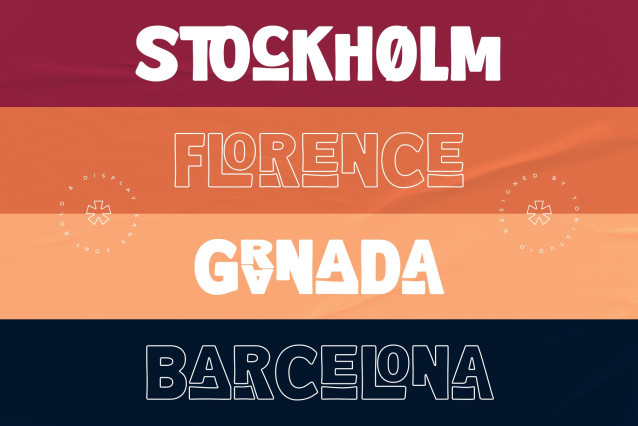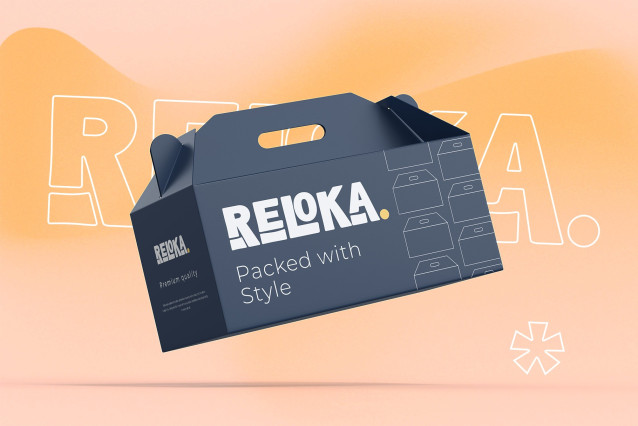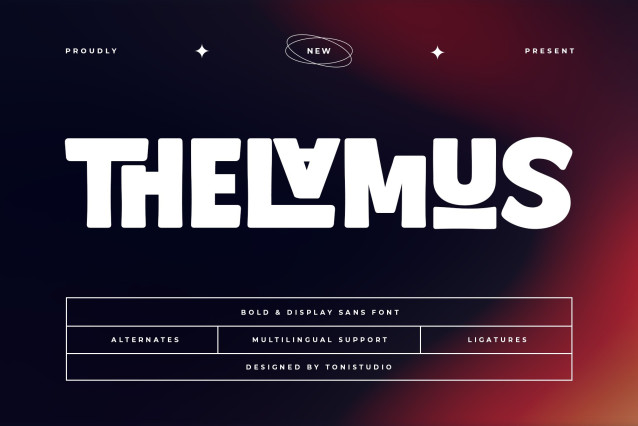
Thelamus Font
Thelamus Font is a bold and modern display sans serif font that brings character, strength, and creativity to your designs. With its eye-catching shapes, playful alternates, and unique ligatures, Thelamus is designed to make your typography stand out in both digital and print media.
Perfect for logos, branding, posters, album covers, product packaging, social media graphics, merchandise, and editorial headlines, this font offers a bold personality that instantly grabs attention. The strong curves and geometric details make it ideal for both retro-inspired and modern minimalist projects.
Thelamus also includes alternates and ligatures to give you more design flexibility and creativity. With multilingual support, it can be used seamlessly in various international projects.